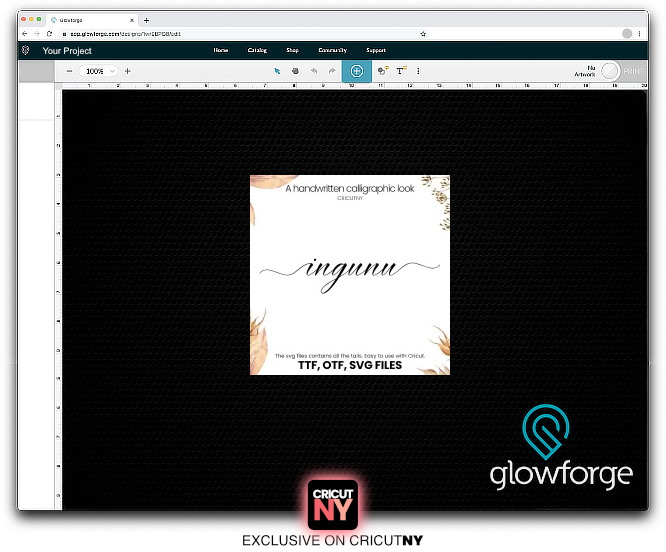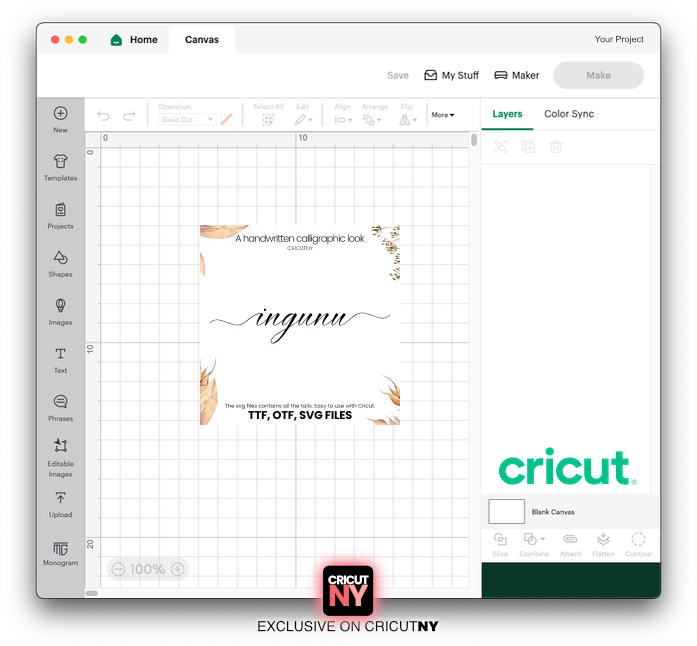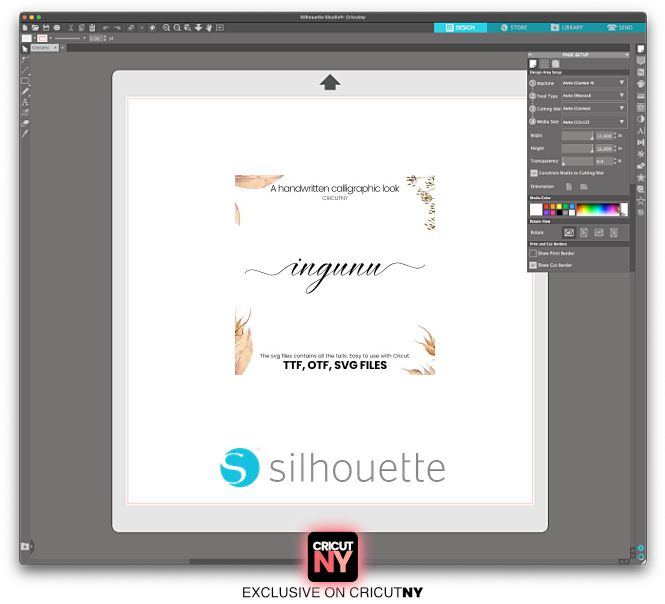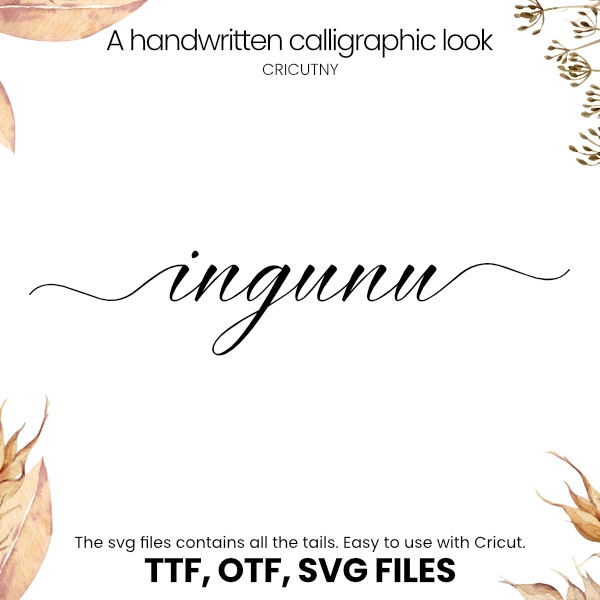
Let me introduce you to the beautiful handwriting font named the Ingunn Font.
This wedding font with long tails will make your wedding invitations or board signs beautiful and delicate. The delicate lines remind me of a woman dancing with her wedding dress in the wind. That would make a wedding font pairings perfectly match a sans serif font. Think of the free font named Helvetica, and why not the Arial. As long as the font is thin enough not to compromise this handwriting font’s delicate lines and tails.
I bent the font slightly like an italic font to give a touch of romance and luxury combined with the tails.
I suggest this handwriting font be for your wedding material, but you can use it for any other event. Think of a jewelry shop—a ring, perhaps. The font would match anything for women (in my opinion), or at least that is delicate. Wedding, jewelry (promoting a ring, a bracelet or a pendant), baby announcement cards, creating a stunning tattoo; Sexy! An assignment, etc. Why not a thank you card! There are so many opportunities to use this beautiful handwriting font.
As a side note, that is probably the best font for tumbler names. I have seen some crafter here in New York using this font, and the result is astonishing.
A few weeks ago, I noticed that woman at my gym doing jogging next to me holding a pink coloured tumbler decorated with some bling-bling and in the middle, her name with a similar font as that one. I couldn’t stop staring at her tumbler; it looked so gorgeous! That’s why I wanted to create a better font than hers. 🙂